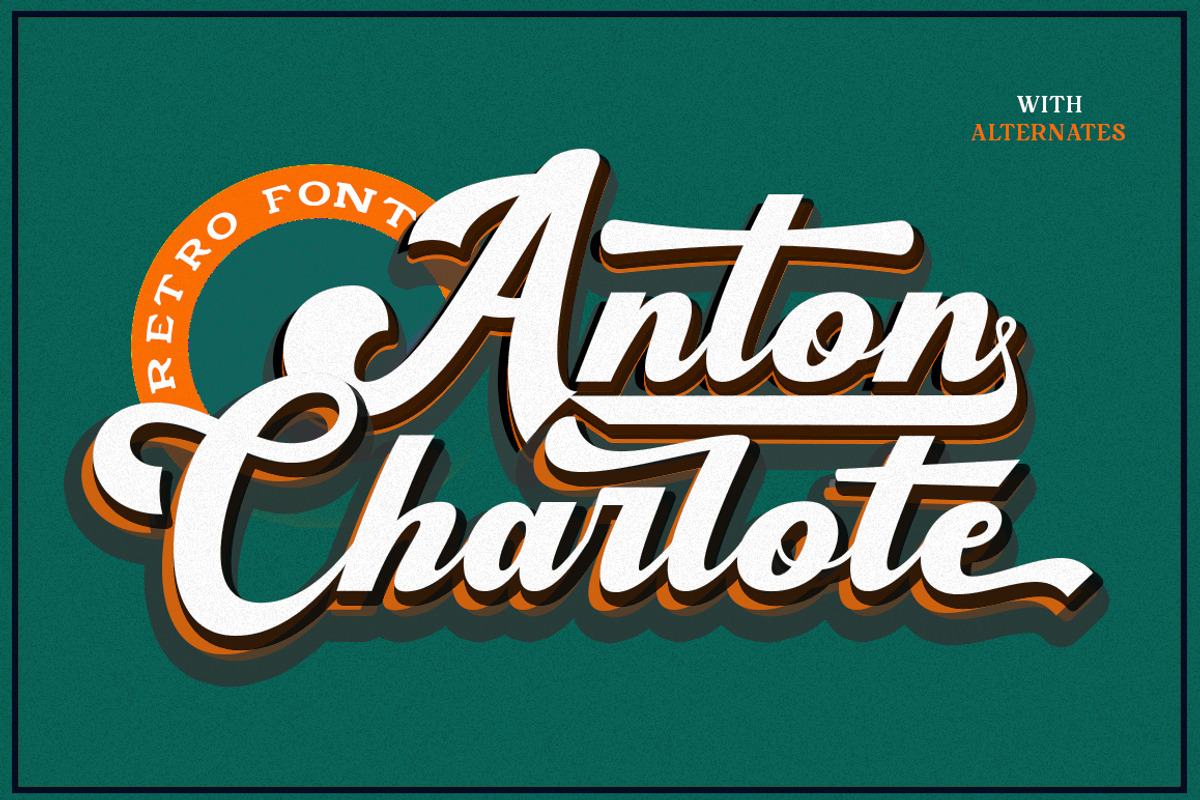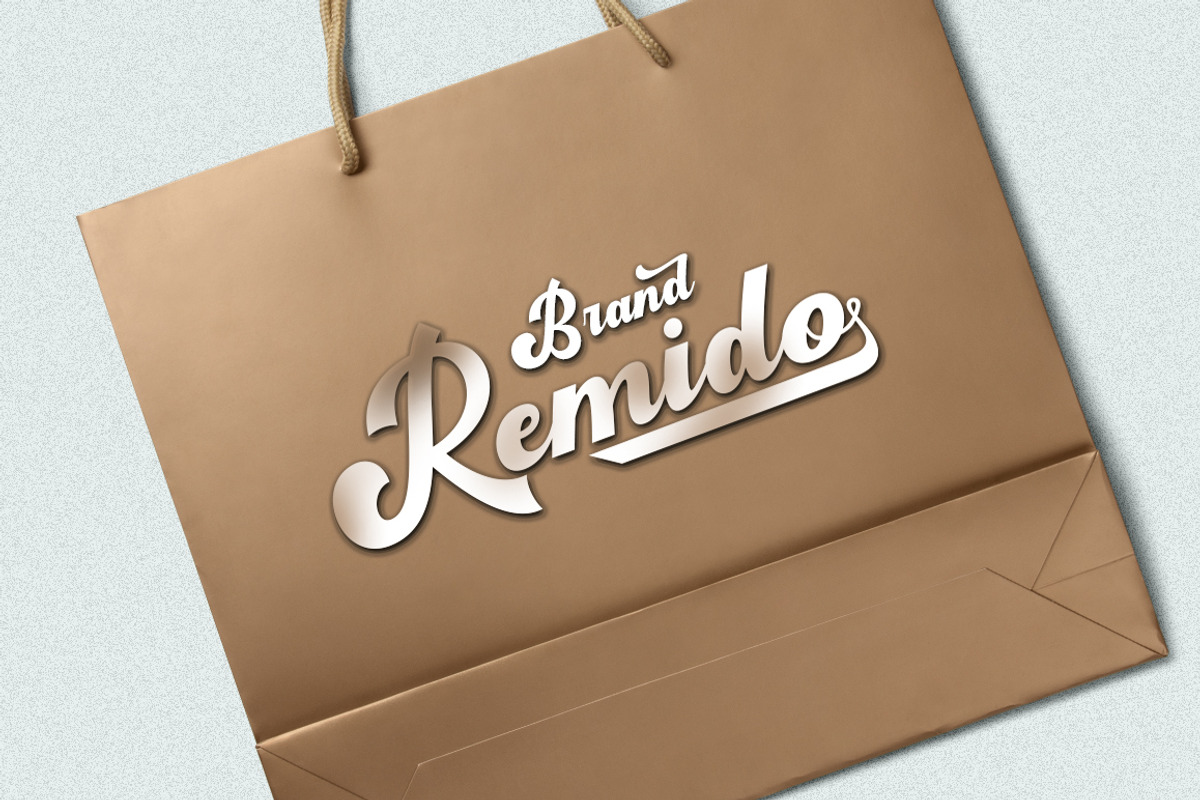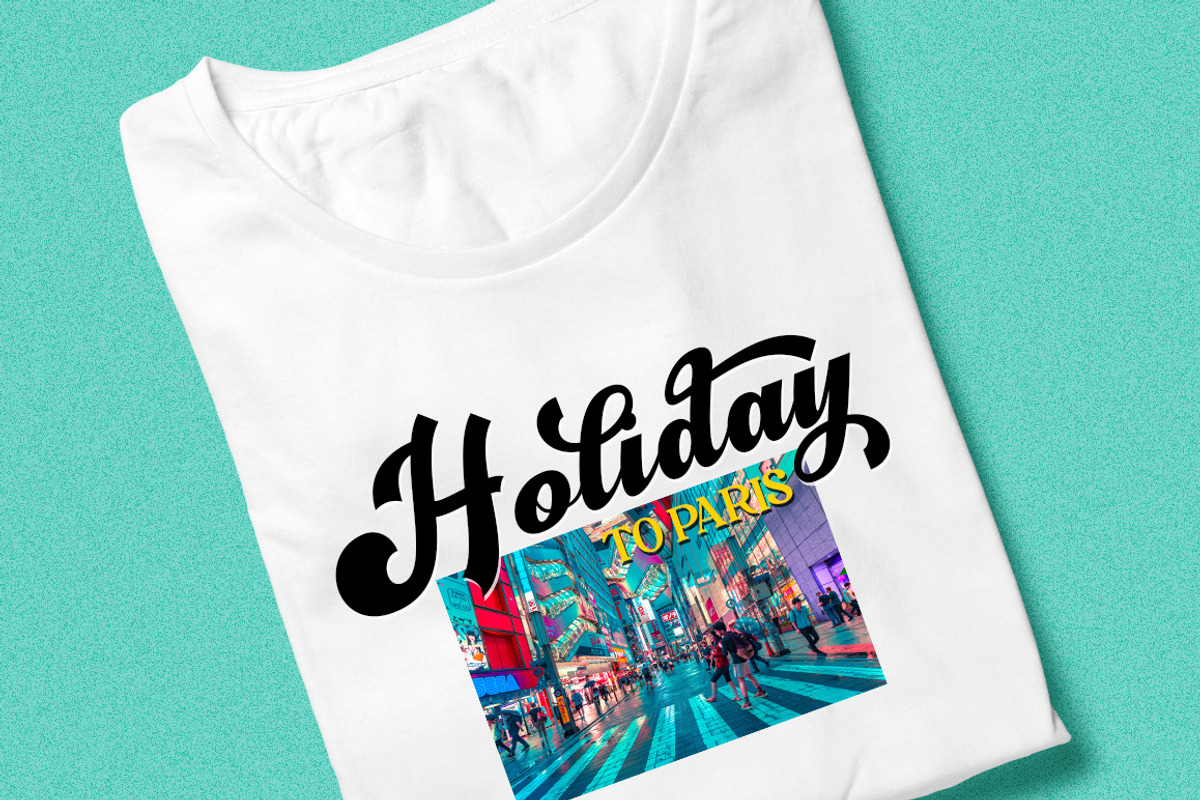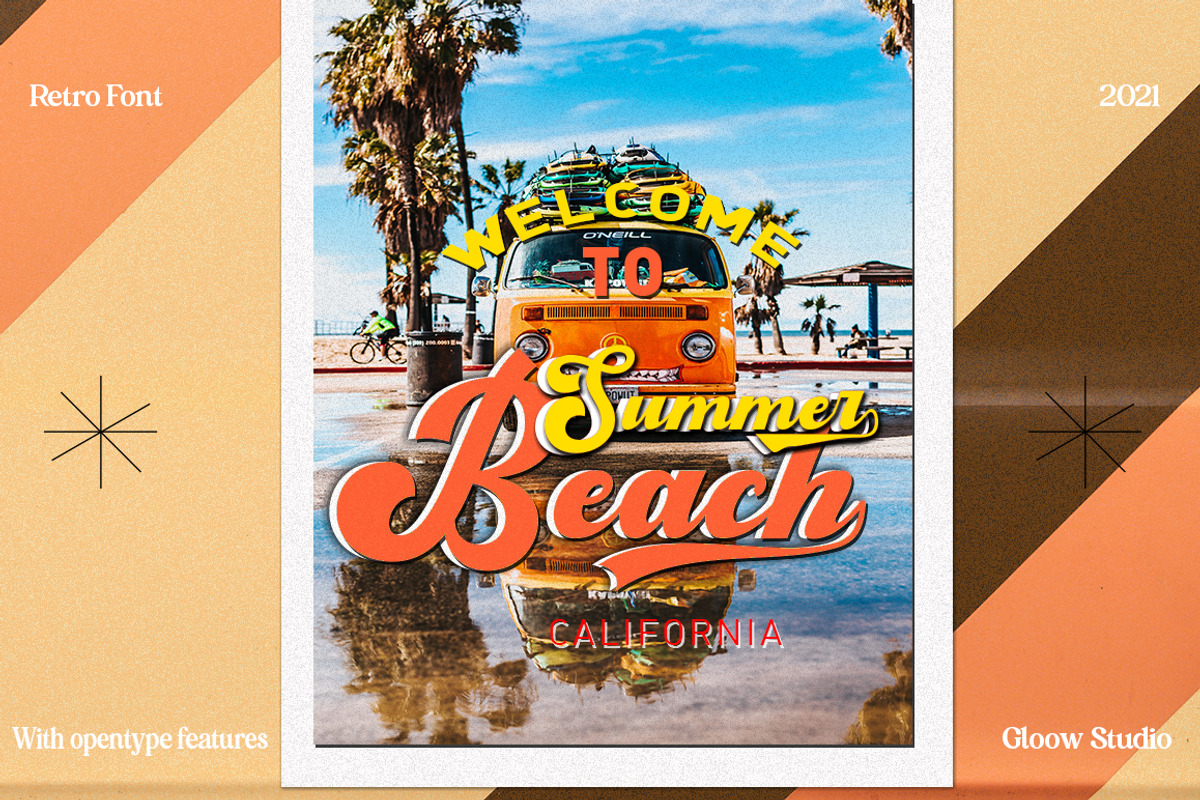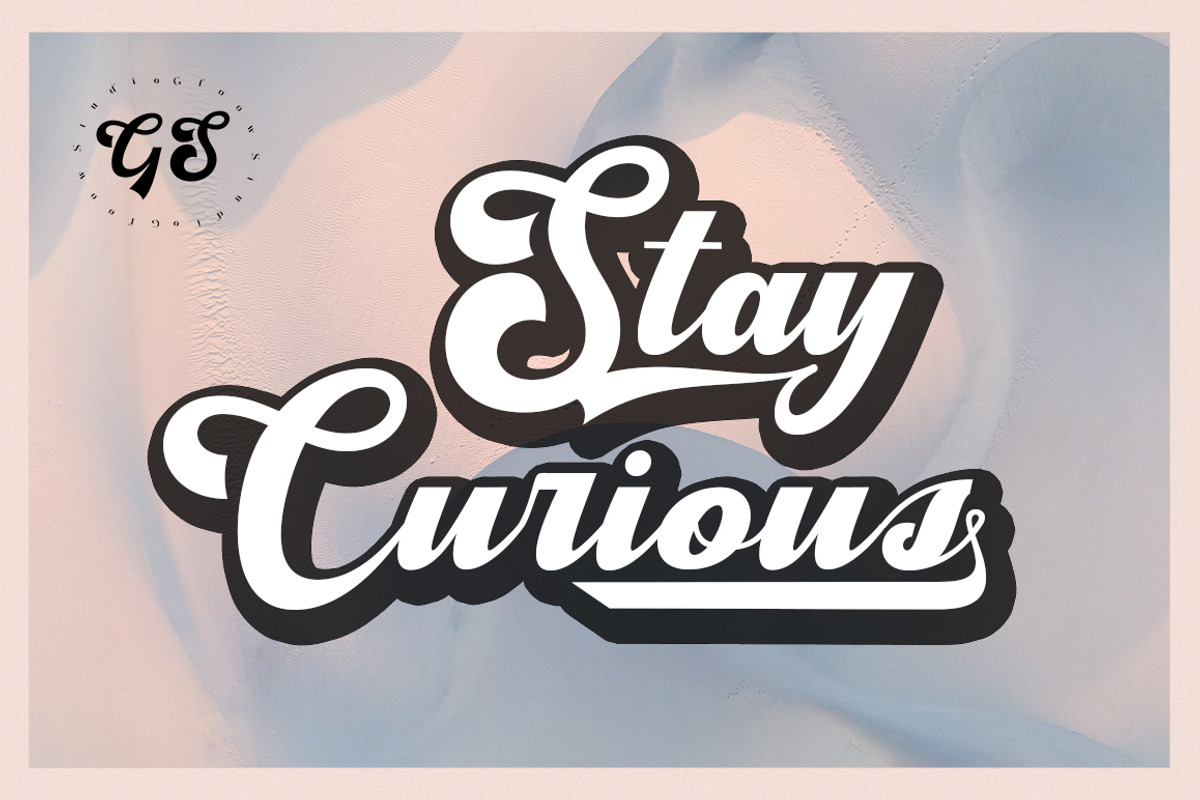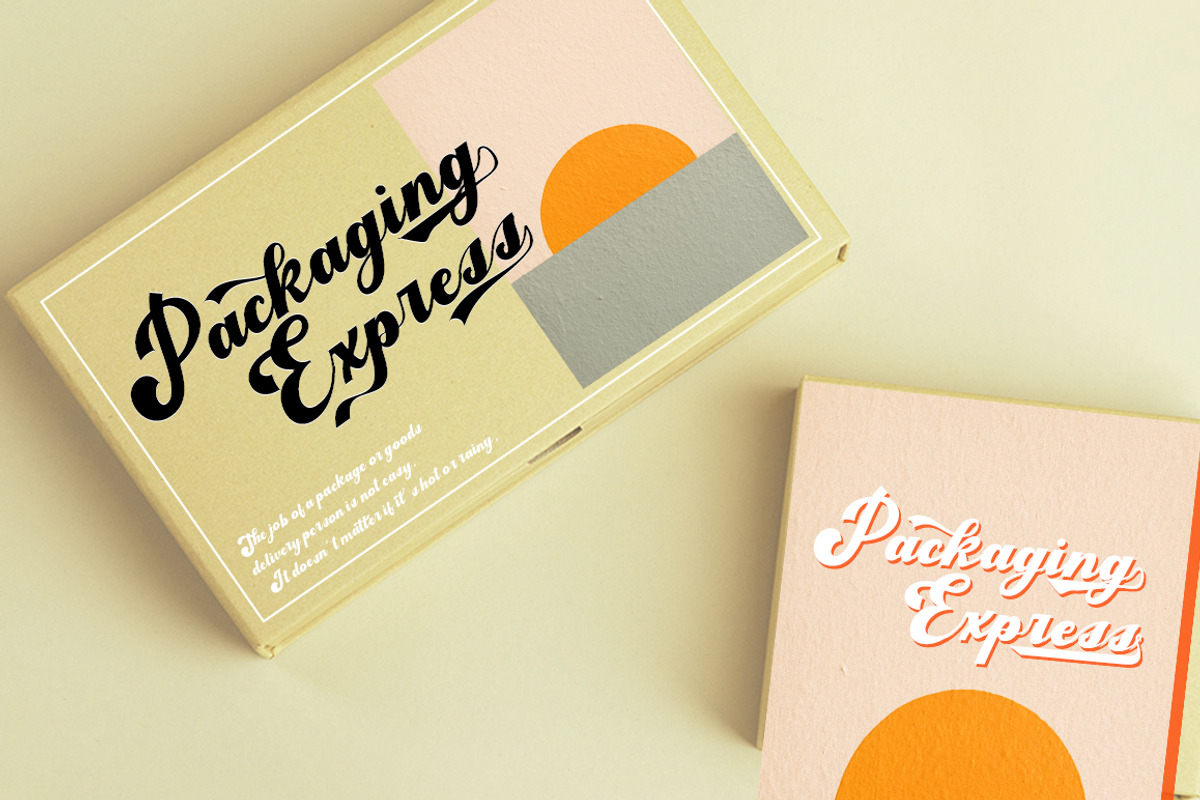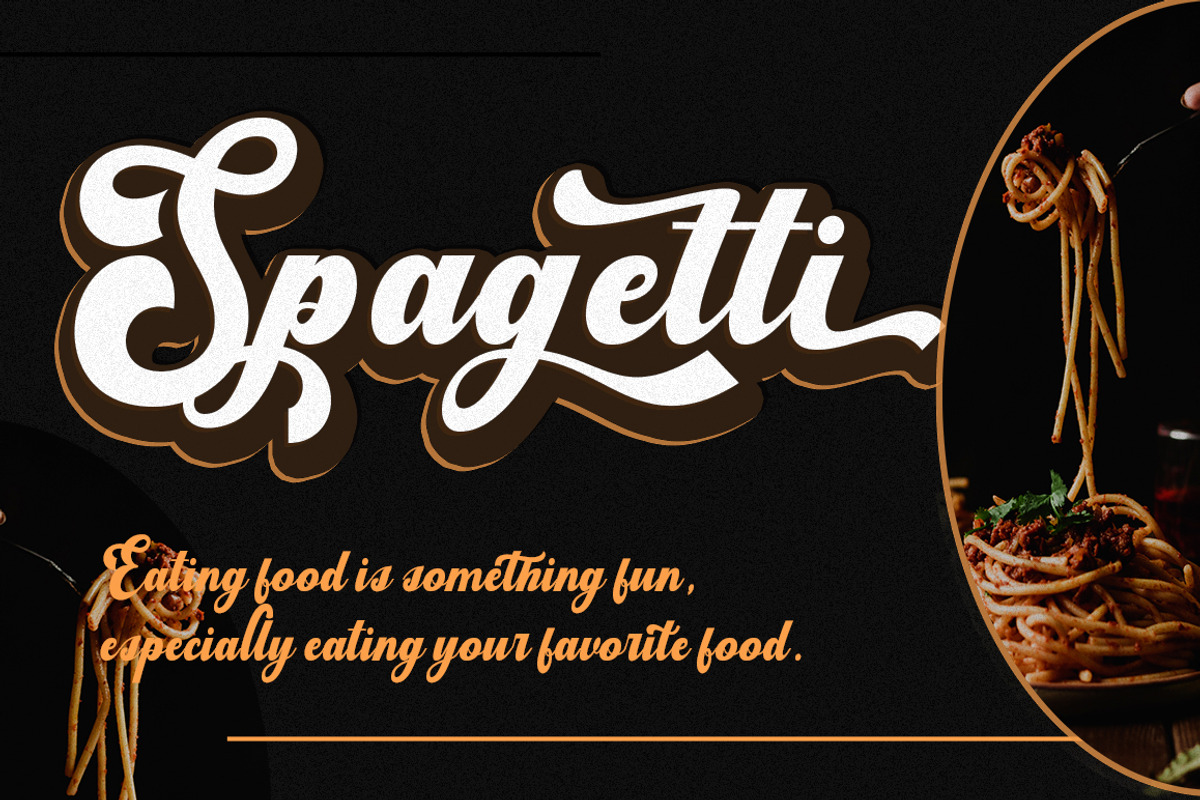
Anton Charlote
Introducing Anton Charlote - A Display Retro Script Font. In creating this font, I just wanted to combine classic style with modern retro style, so be this font. Hope you like it. Inspired by some retro fonts that I made before.
Anton Charlote is perfect for vintage and retro design, badge, logos,t-shirt, poster, branding, packaging, signage, book coverand so much more!
Come with Opentype feature with a lot of alternates, its help you to make great lettering. This font is also support multi language.